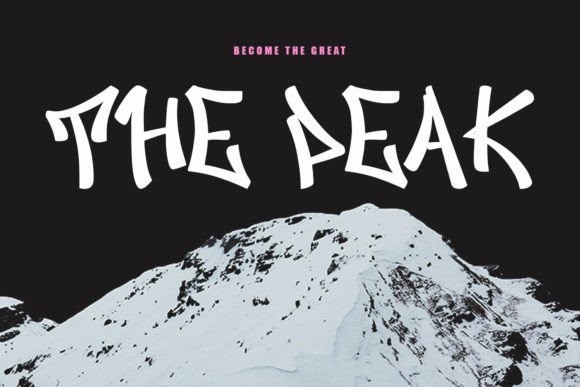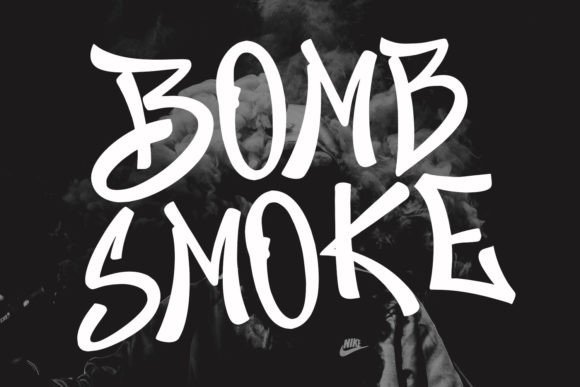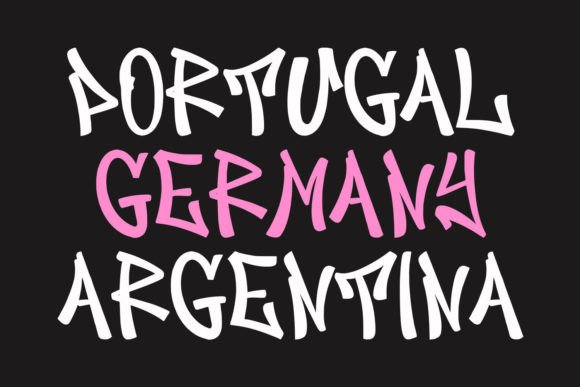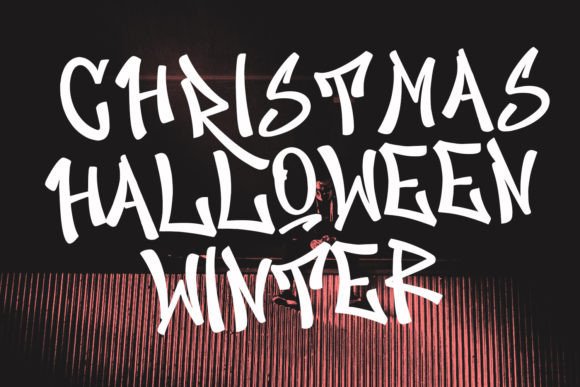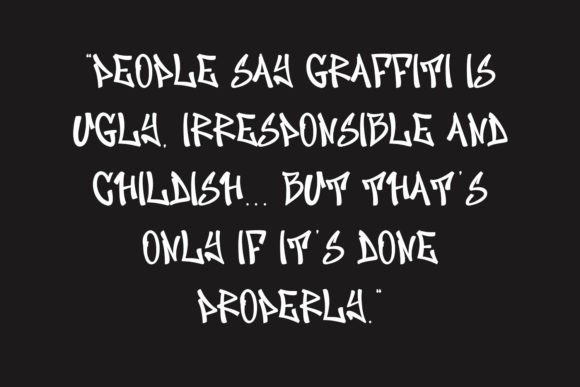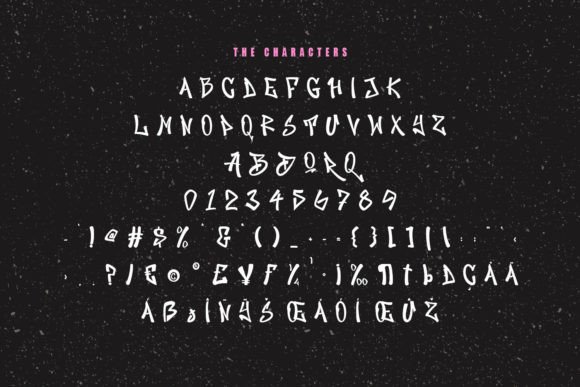
Austin Darolbe Font: Unleash Your Creativity with a Bold, Artistic Style
Austin Darolbe is a unique and eye-catching graffiti brush font that adds a touch of edginess to any design. With its bold, artistic style, this font is perfect for designers and crafters looking to make a strong impression. In this article, we’ll dive into the world of Austin Darolbe, exploring its features, uses, and benefits.
What is Austin Darolbe Font?
Austin Darolbe is a graffiti brush font that mimics the look of hand-painted text. Its bold, expressive strokes and vibrant feel make it an ideal choice for designs that require a touch of personality and creativity. This font is perfect for headlines, titles, and short phrases, as it adds a dynamic and energetic feel to your text.
Key Features of Austin Darolbe Font
- Bold and Artistic Style: Austin Darolbe boasts a bold, artistic style that’s sure to grab attention.
- Graffiti Brush Effect: The font features a graffiti brush effect, giving your text a vibrant and edgy feel.
- Hand-Painted Look: The font’s hand-painted look adds a touch of personality and uniqueness to your designs.
- Perfect for Designs: Austin Darolbe is perfect for making a strong impression in designs, including posters, flyers, brochures, and more.
Uses of Austin Darolbe Font
Austin Darolbe is a versatile font that can be used in a variety of design projects, including:
- Posters and Flyers: Add a bold, eye-catching touch to your posters and flyers with Austin Darolbe.
- Branding and Logo Design: Use Austin Darolbe to create a unique and memorable logo for your brand.
- Social Media Graphics: Make your social media graphics stand out with the bold, artistic style of Austin Darolbe.
- Packaging Design: Add a touch of personality to your packaging design with Austin Darolbe.
Benefits of Using Austin Darolbe Font
Using Austin Darolbe font offers several benefits, including:
- Unique and Memorable: Austin Darolbe helps you create unique and memorable designs that stand out from the crowd.
- Time-Saving: The font’s bold, artistic style saves you time and effort in designing from scratch.
- High-Quality Design: The font is designed with high-quality and clarity in mind, ensuring your designs look professional and polished.
Tips for Using Austin Darolbe Font
Here are some tips for using Austin Darolbe font effectively:
- Use it Sparingly: Use Austin Darolbe sparingly to make a strong impression, rather than overusing it and losing its impact.
- Pair it with Other Fonts: Pair Austin Darolbe with other fonts to create a unique and visually appealing design.
- Keep it Simple: Keep your design simple and clean to let Austin Darolbe take center stage.
Austin Darolbe font is a bold, artistic font that’s perfect for designers and crafters looking to add a touch of personality to their designs. With its graffiti brush effect, hand-painted look, and versatility, Austin Darolbe is an excellent choice for a wide range of design projects. By following the tips outlined in this article, you can unlock the full potential of Austin Darolbe and create stunning designs that make a strong impression.